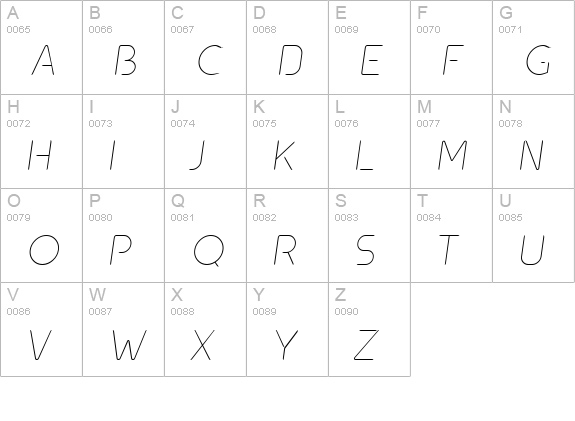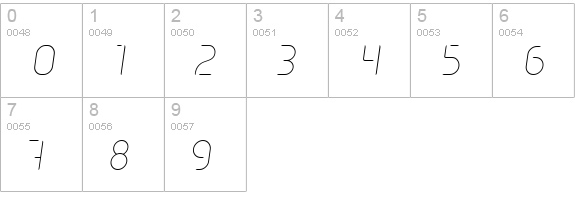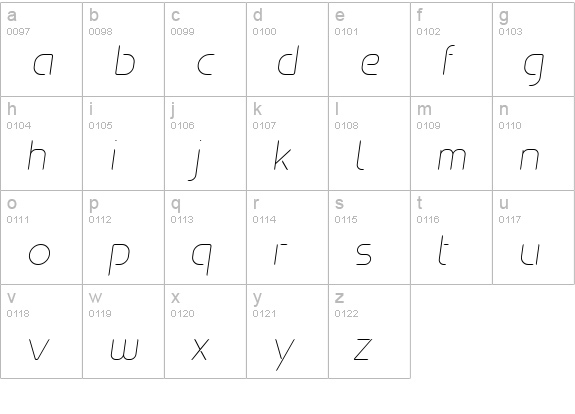
oxo-ThinItalic Font Details
Introducing oxo-ThinItalic font, a sleek and elegant typeface that exudes sophistication and modernity. This unique font features a delicate and refined italic style that adds a touch of flair to any design project. With its clean lines and thin strokes, oxo-ThinItalic is perfect for creating a sense of elegance and sophistication in logos, branding, headers, and more. What sets oxo-ThinItalic apart is not only its stunning design but also the fact that it is completely free to download. That's right, you can get your hands on this exquisite font at absolutely no cost by visiting FontsMarket.com. Don't miss out on the opportunity to elevate your designs with the beauty and versatility of oxo-ThinItalic font. Download it today and see the difference it can make in your projects.